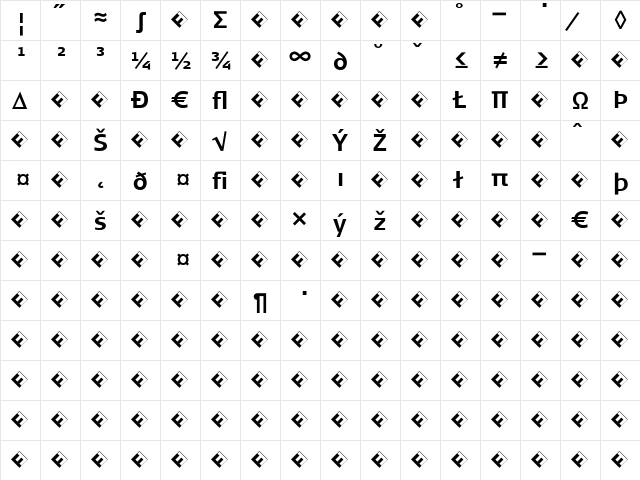
SignaNormal-BoldExpert Regular Font Preview
SignaNormal-BoldExpert Regular
SignaNormal-BoldExpert Regular Font Details
| Designer | Ole Soendergaard |
Design Context for SignaNormal-BoldExpert Typeface
SignaNormal-BoldExpert offers clean, dependable letterforms without strong stylistic allegiance, making it a practical choice for designers who need flexibility. Its bold stroke weight gives it real presence on the page.